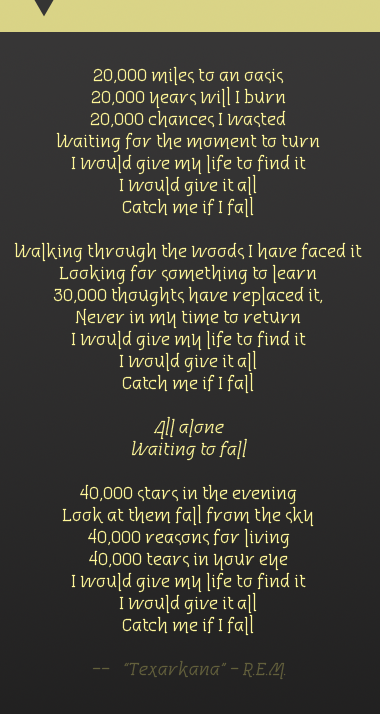
• This font has no idea what it wants to be when it grows up. Stupid designer.
Un-kerned...
Once again this is so F**kin cool.
really good one!
Is the "All Alone" part forced Italic?
WOW.
i love the '0'.
(and i'm not going to make sex to it. it's platonic, you know.)
i love the "un-kerned ...", too. :)
mega cool
LOL, Nippa! A skewed compliment more telling than a straight one. Thank you. Really. :) FontStruct forces creativity upon you. Would this font have been the same if I could curve the s differently? Probably not. It was the truncated s that forced me to balance the dangling s with dangly bits in other glyphs. And because I went down with some characters, they had to be balanced with extended bits above in some others. Once I went up and down, it then became a matter of balance not to overdo it. Limitations breed inventiveness. Had I been doing this in Illustrator, it would have ended as something completely different. Luckily, I had no pre-conceived idea what I wanted to do.
@jmarquez: Thanks. It’s Faux-Italic in Photoshop. Someday, if I feel brave enough, I will do a true italic in FontStruct.
@guentersen: Thanks, buddy. Are you sure you won’t change your mind about sexing up the 0? It’s the perfect shape for it.
Another stunner. And the sample is a great demo.
djnippa is right. I see your stuff and almost lose heart in my own.
It may not know what it wants to be, but it sure is great. Beautiful work, thalamic.
@aphoria: Oh no no no, there will be no losing of heart, especially by someone as creative as you. If I am not mistaken, Union Flat, Paperclip, Solida, Futility, Villa, Cowboy, etc., etc. are all your fonts, aren't they. All excellent. We all learn from each other. Some interesting innovation you employ may give me an idea to do something new on my own and vice versa. We used to have a user named 'williaum' who was awesome and came up with new and creative uses of the same bricks we get. I learned a lot from him. He has since left due to personal reasons but there have been no shortage of many more designers to display their own creativity, yourself included. You and your work is inspirational to many. Keep up the good work. And no losing of any heart. Please.
@SquarePeg: Your encouragement always makes me feel good about myself. Thank you.
We all learn from each other.
Well said! And I heartily agree. :-)
@iMarquez
There are a number of reasons to bring in a small charge for each download.
1) Some people spend hours, days & weeks perfecting their fontstruct. Surely that deserves some form of payment. Charging $2-$5 is a small amount, considering the effort and skill some people put in.
2) Some designers have had over 1000 downloads x $2-$5 that's $2000-$5000 dollars! That's great money in anyone's books.
3) It would not scare anyone away, it would do completely the opposite, as there's a possible chance that everyone can make money.
4) It would increase the number of Fontstructs. The more you have out there the more chance you have of making money.
This is so nice! Super smooth in the sample but still very cool large.
Why do you tag it sans serif and serif?